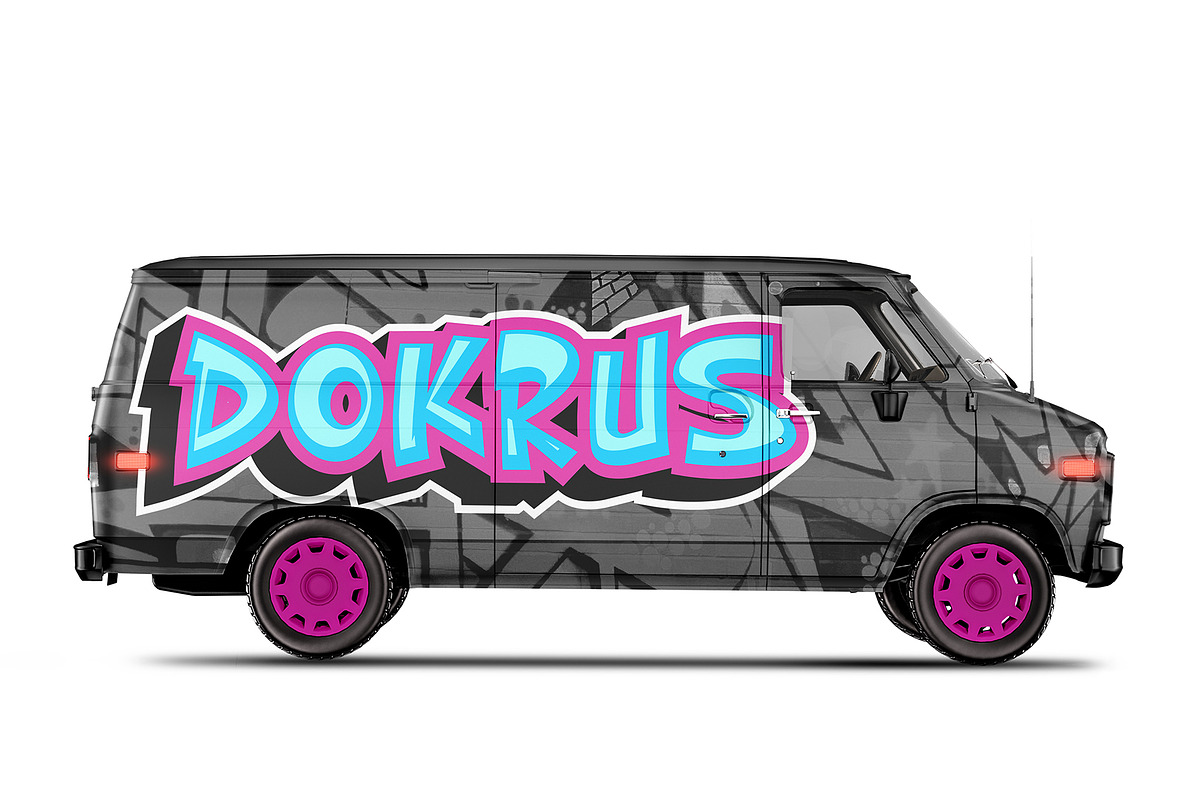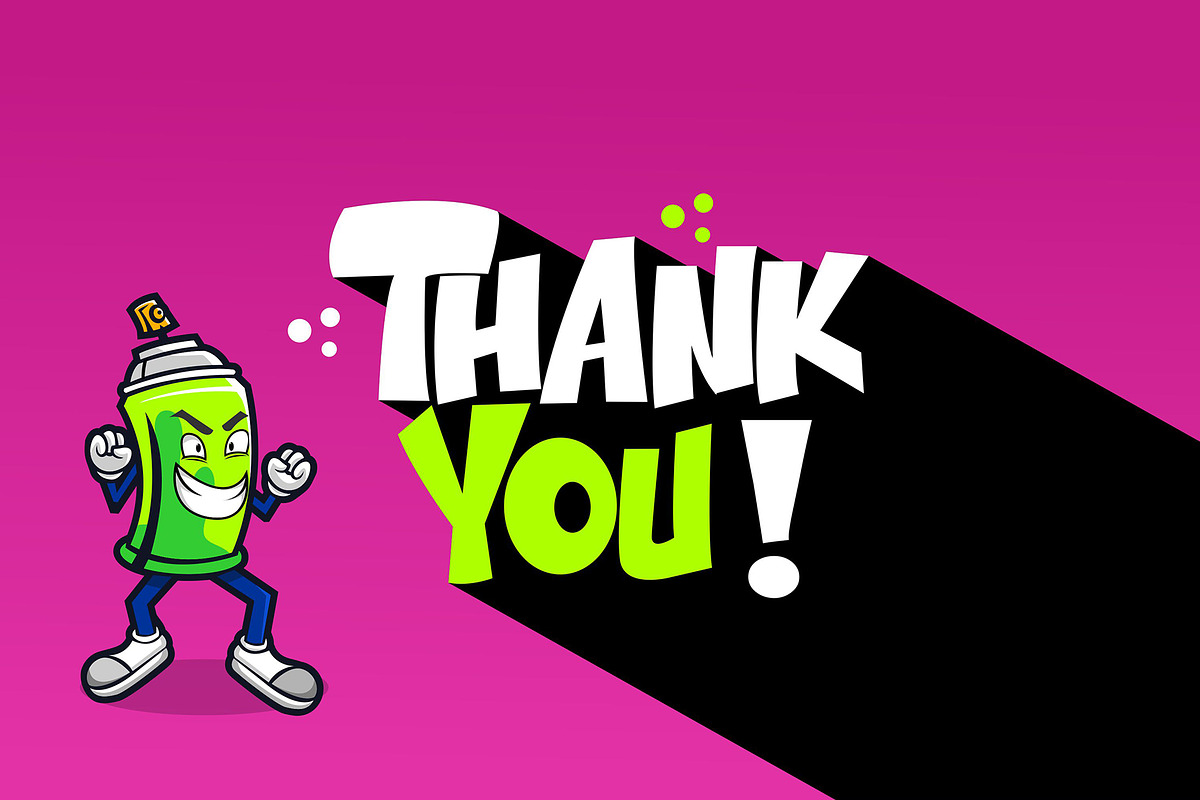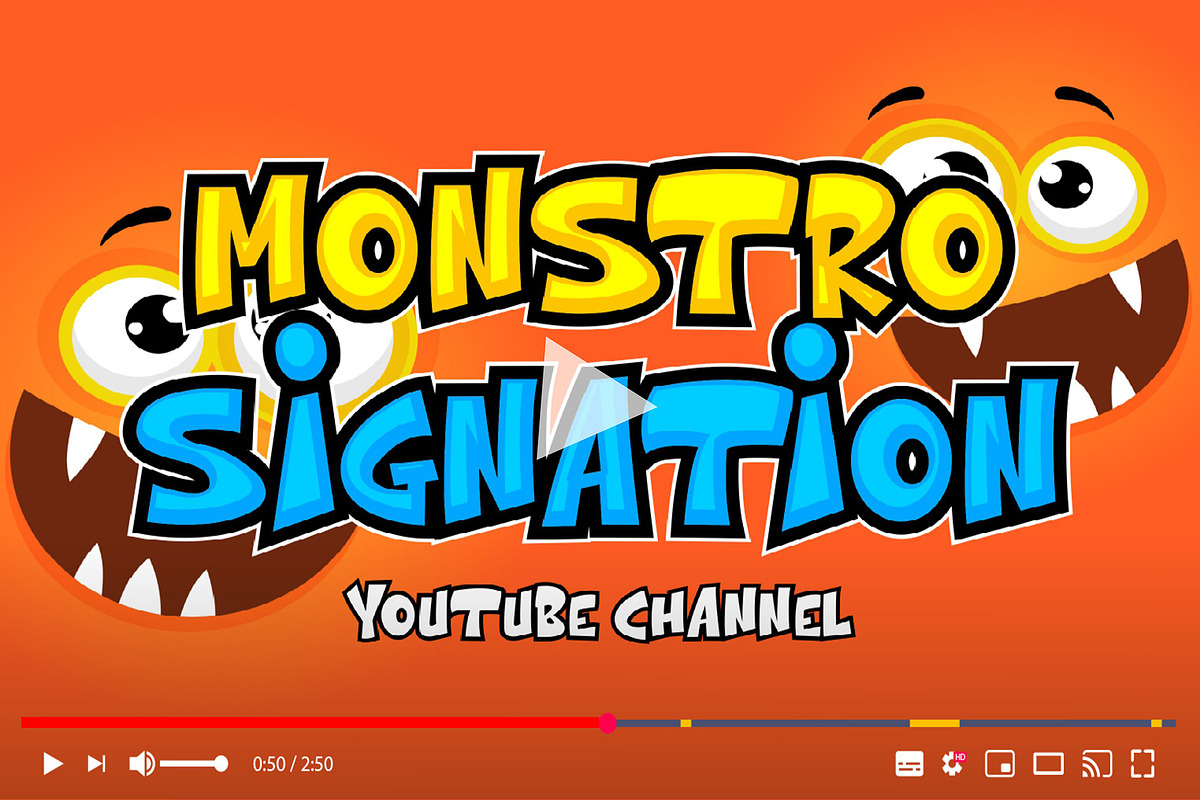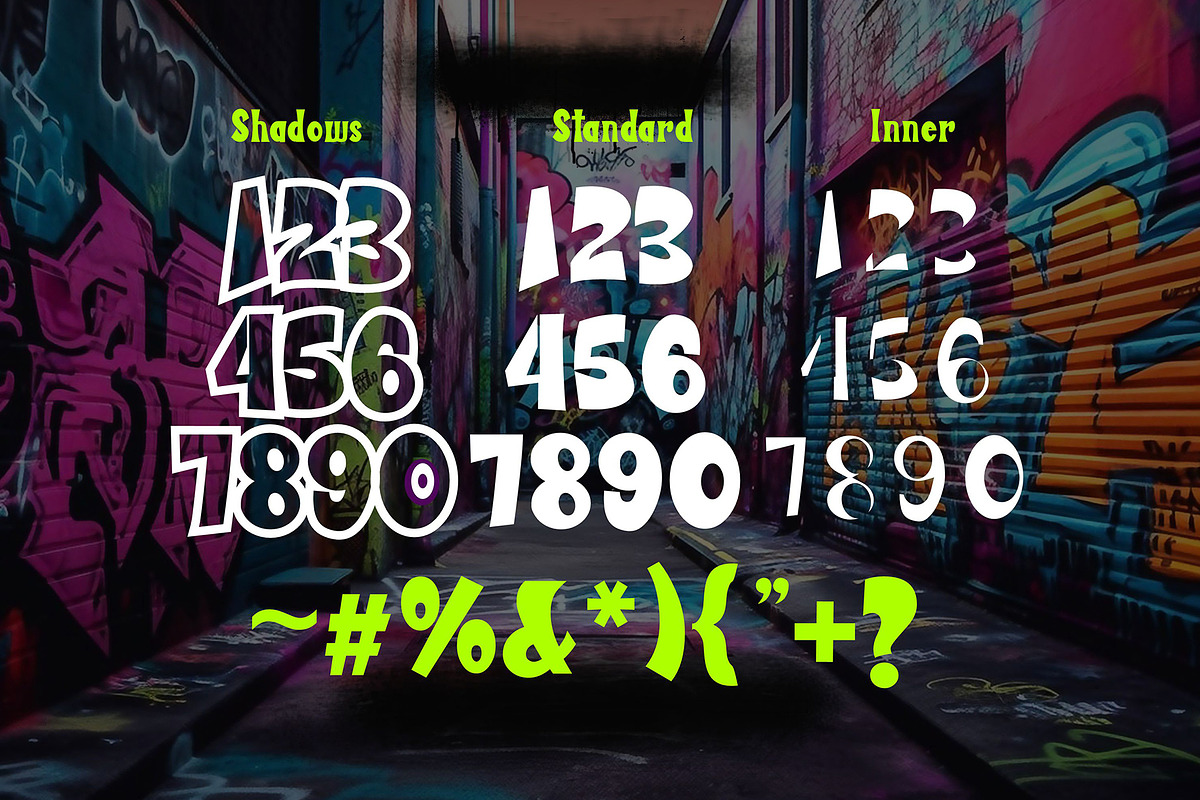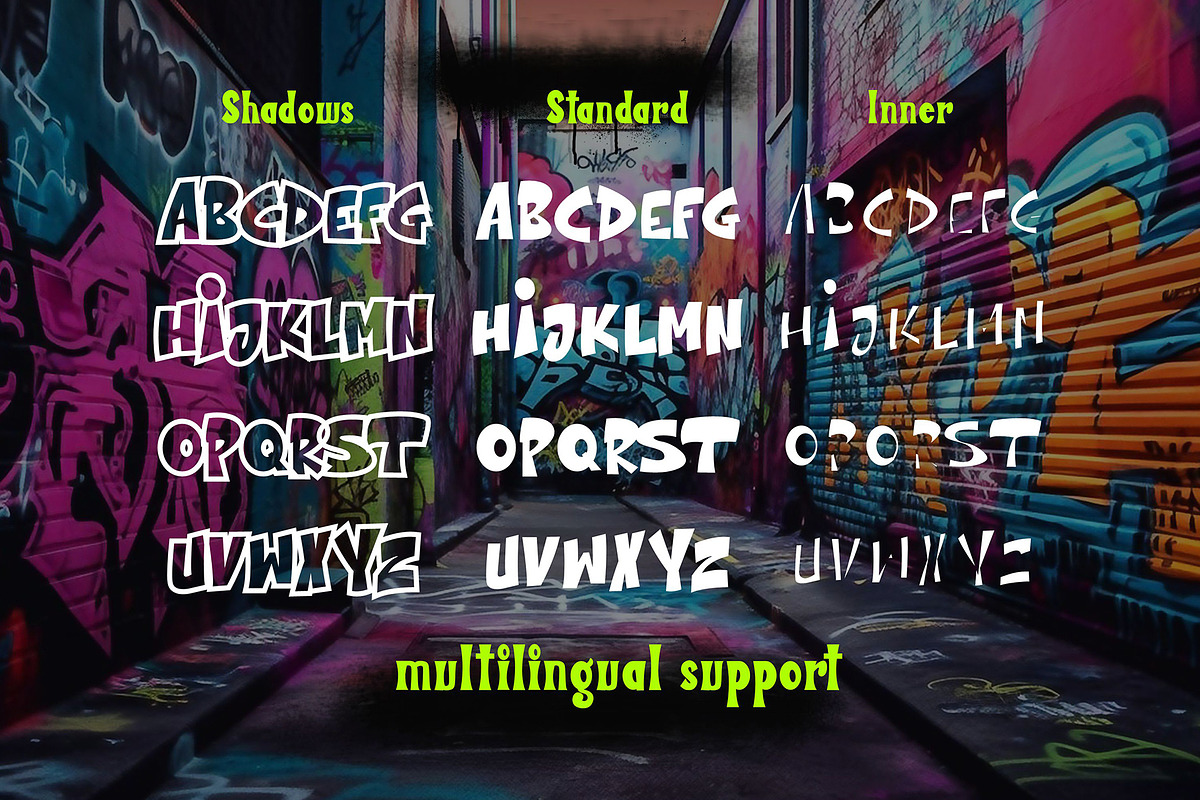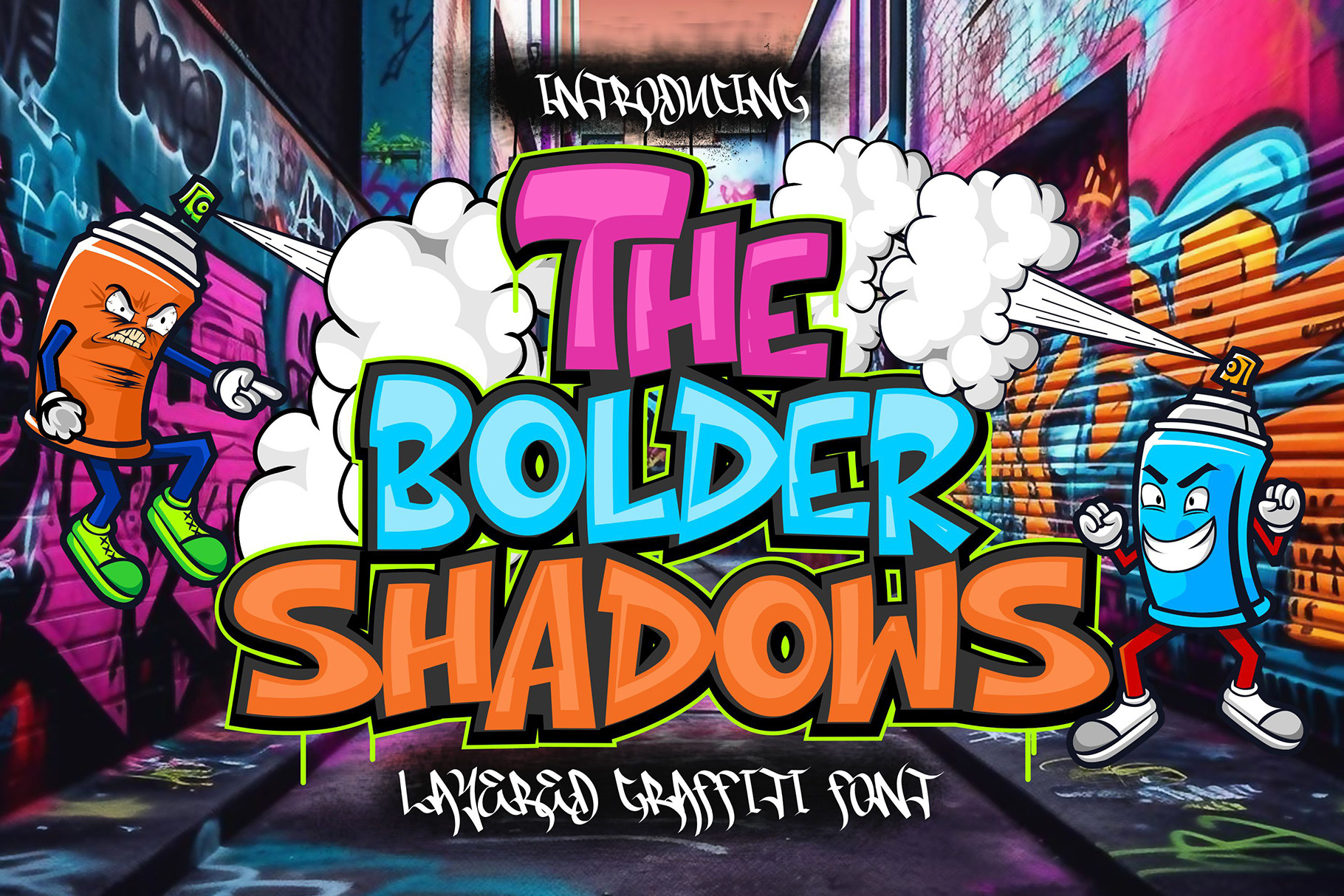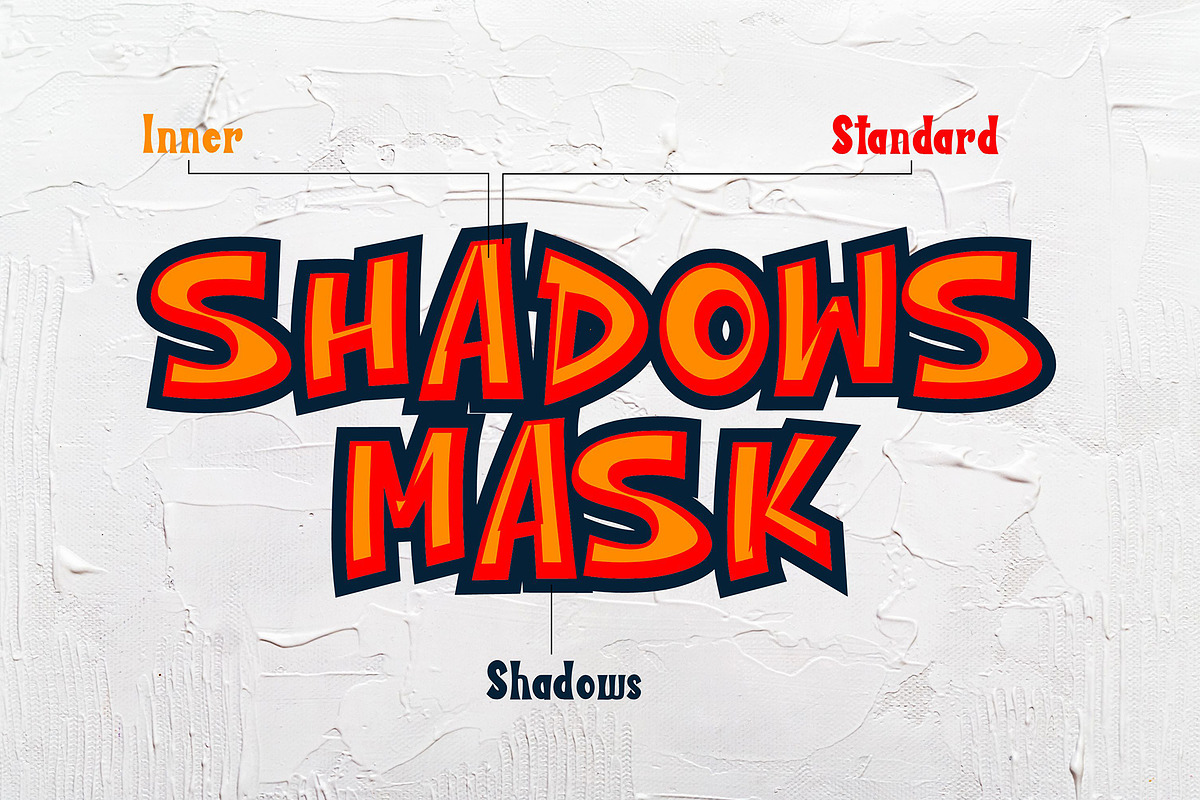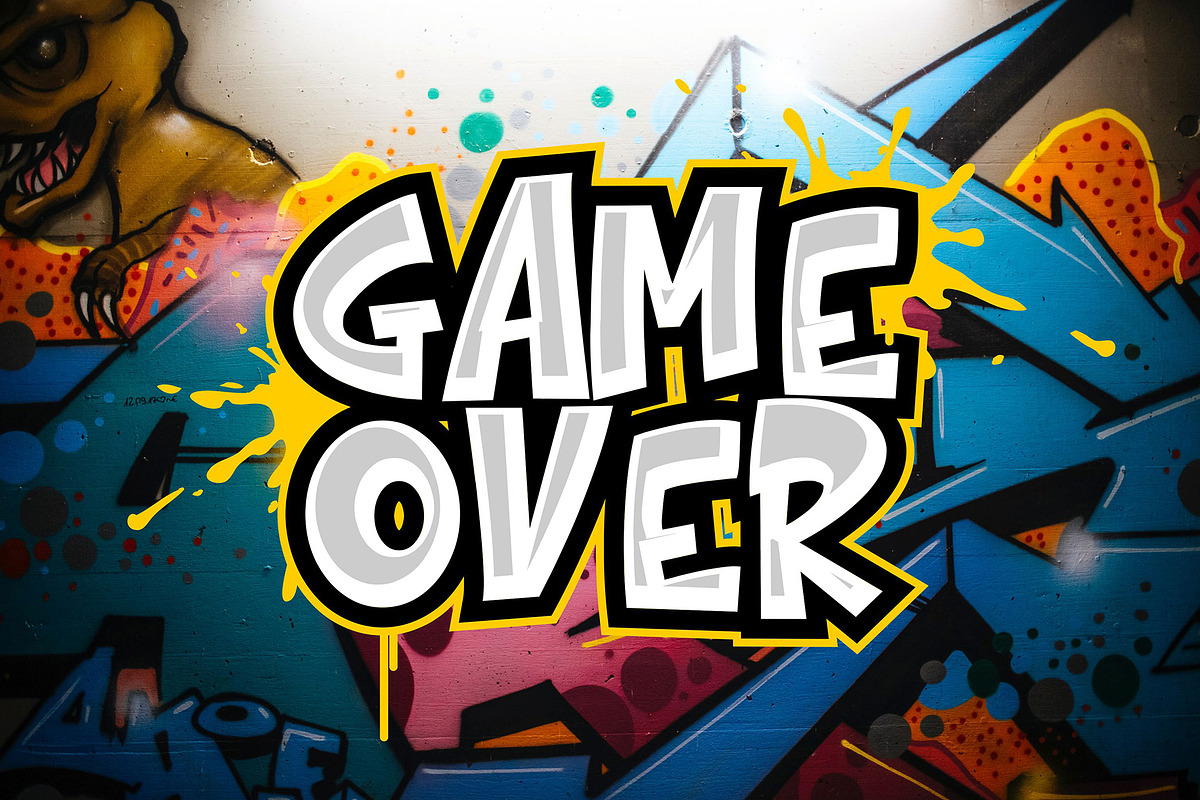
The Bolder Shadows - 3d Layered Font
The Bolder Shadows is an urban graffiti font characterized by sharp edges and a bold look. Ideal for music posters, apparel designs, shirts, and streetwear, this font brings a touch of edginess to your projects. The unique style of "The Bolder Shadows" makes it the perfect choice for street style or urban graffiti themes. Whether you want to create a strong and powerful statement or simply add a touch of attitude to your designs, "The Bolder Shadows" is the font for you.